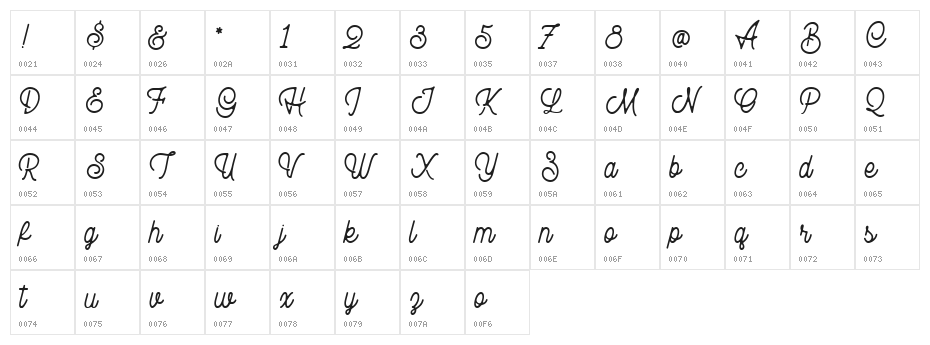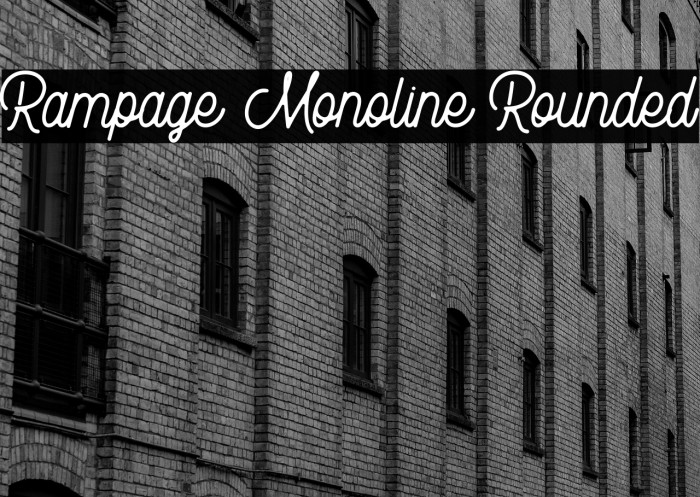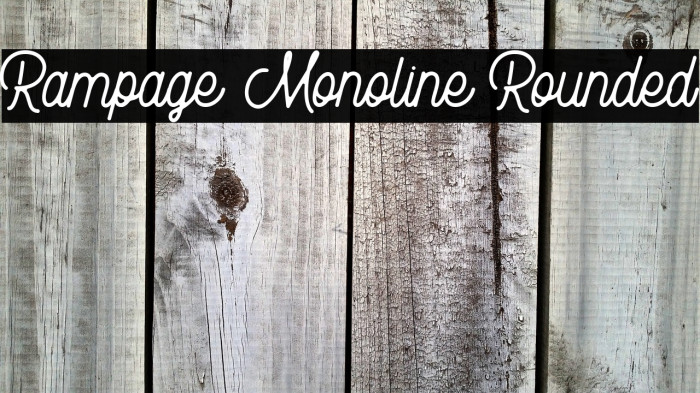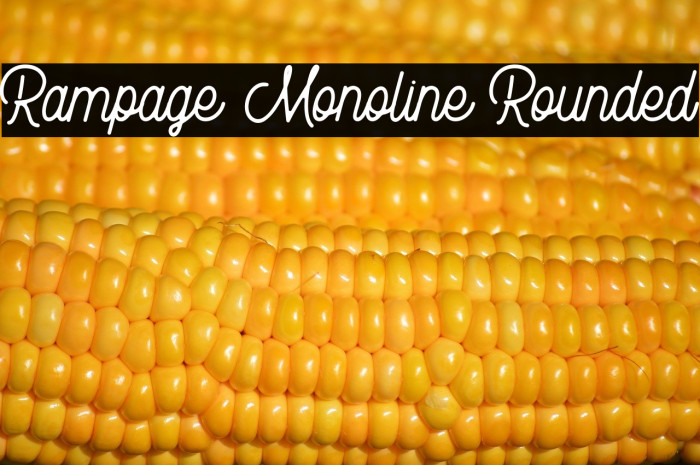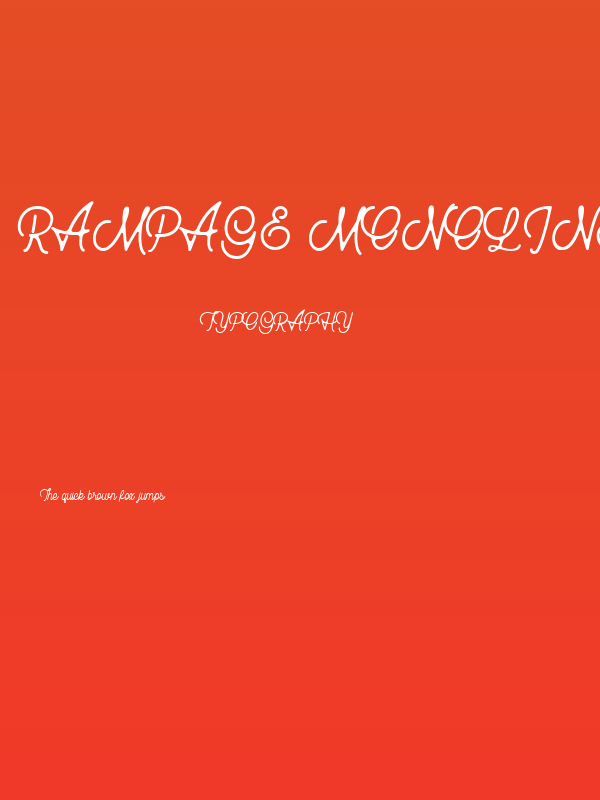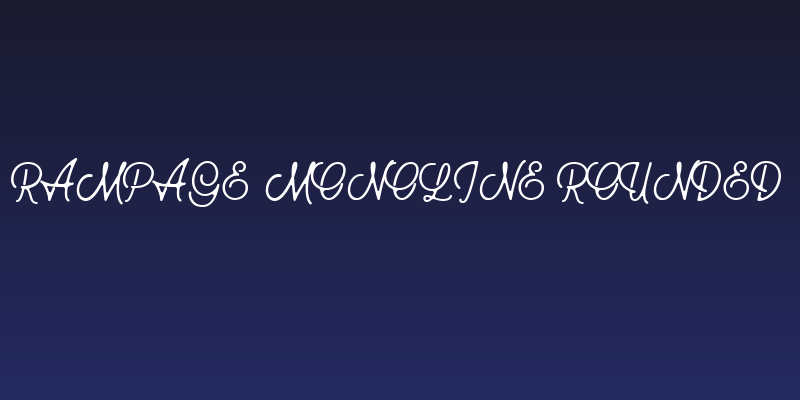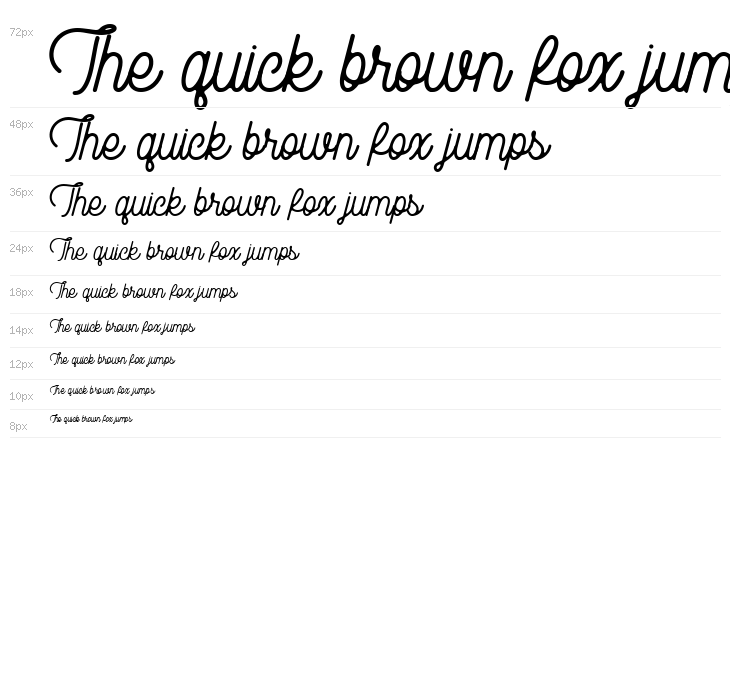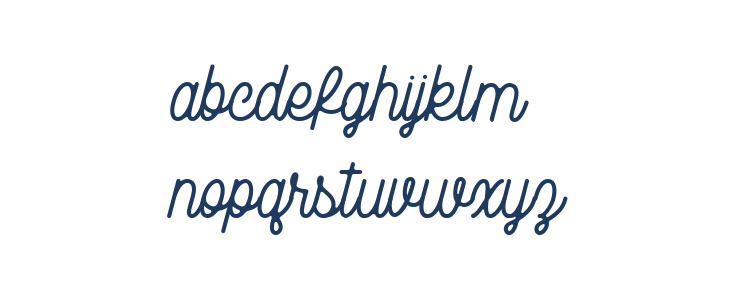
Rampage Monoline Rounded Font
Rampage Monoline Rounded Description
This font features a monoline, rounded script style that exudes a casual and friendly vibe. The characters are connected in a flowing manner, reminiscent of cursive handwriting. The uppercase letters maintain a consistent height, while the lowercase letters have a slight slant, adding to the handwritten feel. The numerals are clear and legible, matching the overall style of the alphabet. Special characters are designed to blend seamlessly with the letters, maintaining the font's cohesive appearance. This font's rounded edges and uniform stroke width contribute to its approachable and informal aesthetic.
| Overall Style | Casual, Handwritten |
| Use Case | Logos, Invitations, Social Media Graphics |
| Proposed Projects | Ideal for greeting cards, invitations, personal branding, and social media graphics. |